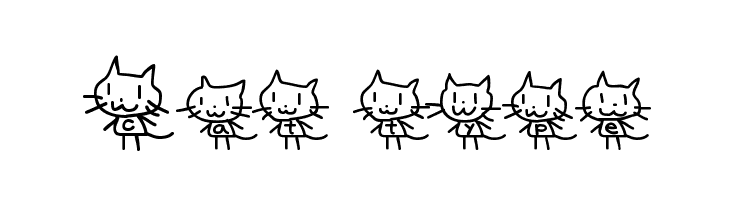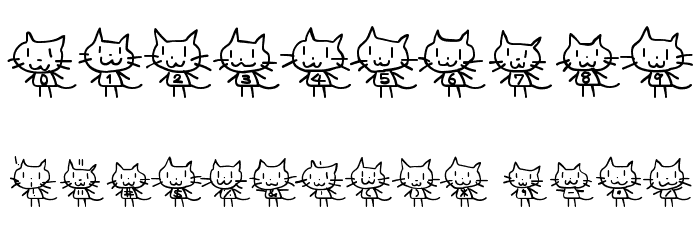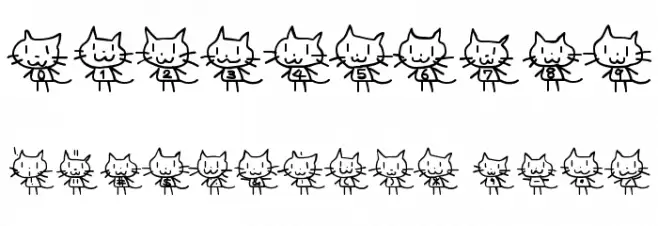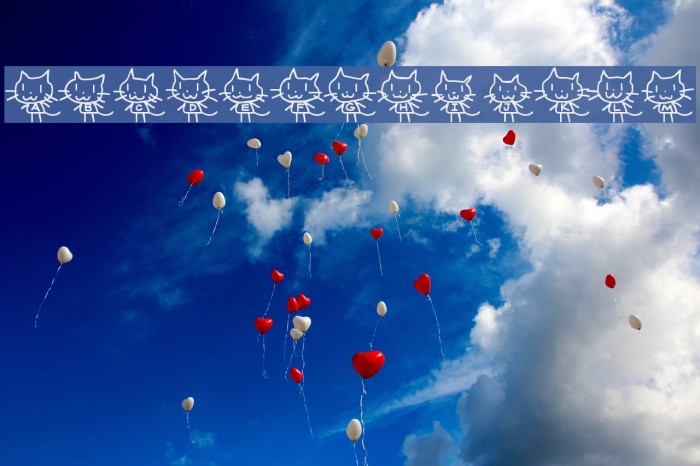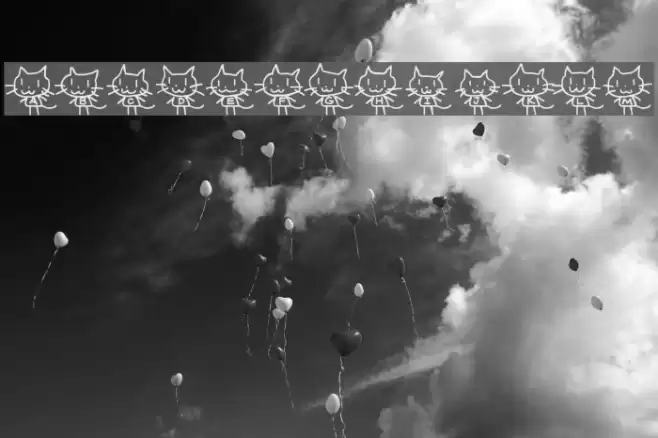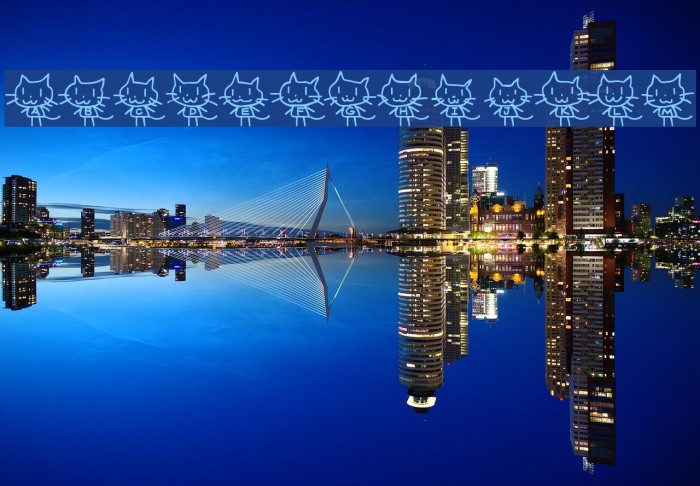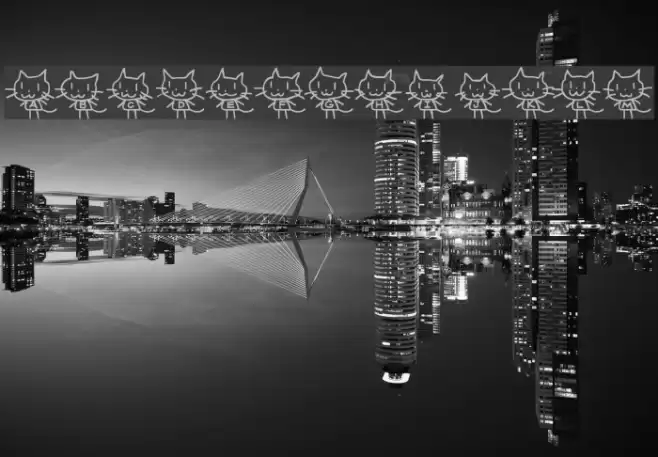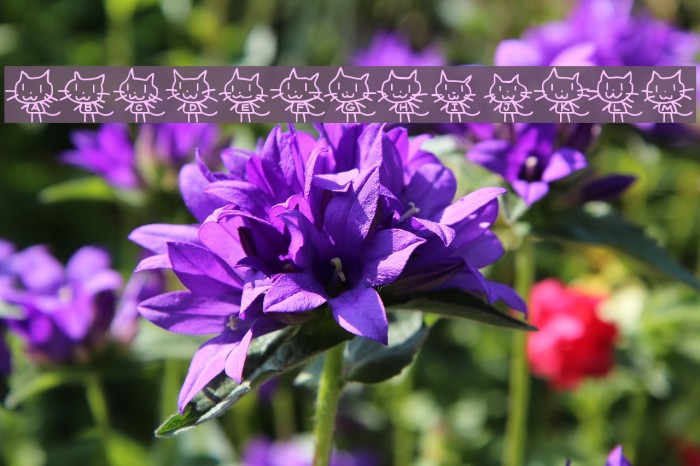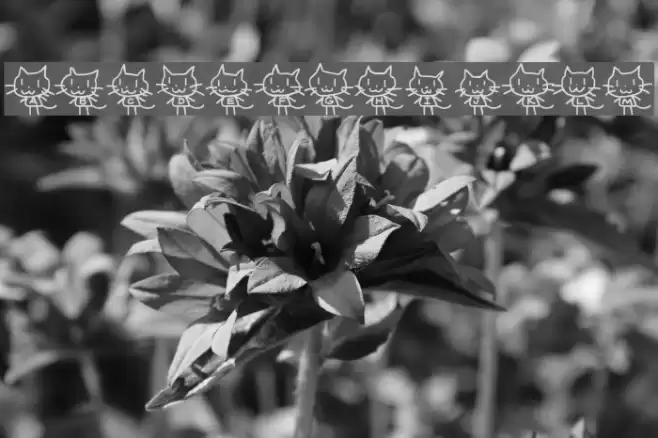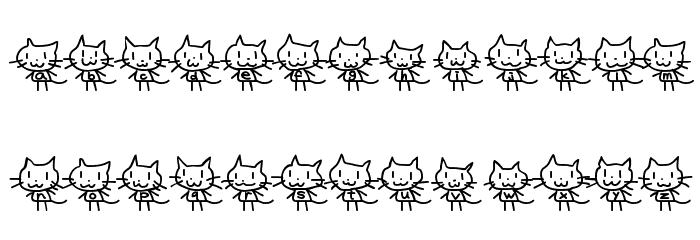
Cat type Font
Cat type Description
A whimsical, hand-drawn font where each character is represented by a playful cat illustration, each with subtle differences to indicate different letters, numbers, and symbols. The style is informal and cartoonish, with simple lines and expressive faces.
| Overall Style | Decorative, Whimsical, Hand-drawn |
| Use Case | Logos, Headlines, Posters, Themed events |
| Proposed Projects | Children's books, greeting cards, playful branding, pet-related products, party invitations. |